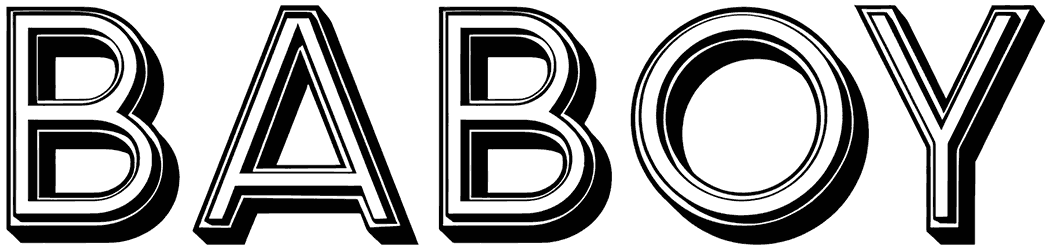
Baboy Font
Baboy is a great way to add texture to your designs. This retro font results from a regular combination of lines and geometric shapes, which gives it the value of being at the top of your list. The inherent order has ena…
Baboy is a great way to add texture to your designs. This retro font results from a regular combination of lines and geometric shapes, which gives it the value of being at the top of your list.
The inherent order has enabled new brands to provide an authentic feeling. In addition, the shadow effect makes it suitable for highlighting content on posters and advertisements, and makes the lack of small letters not a big problem for this shadow font.